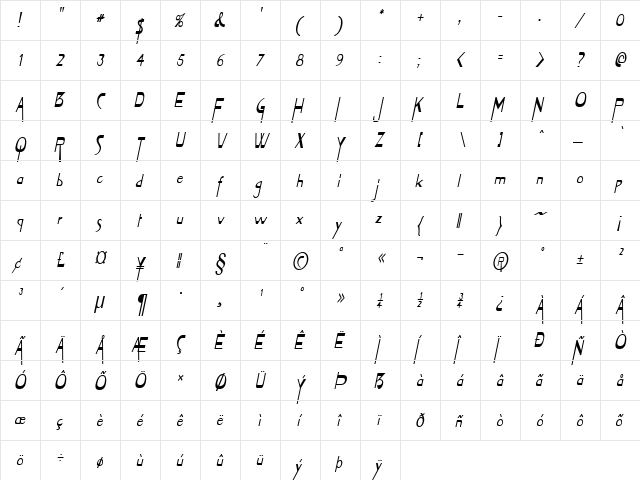
TabletCondensed Italic Font Preview
Design Context for TabletCondensed Typeface
TabletCondensed takes a measured approach to typography — its balanced proportions and neutral character make it a reliable workhorse for both digital and print work. The dynamic lean of this cut emphasises speed and emphasis in any layout. The condensed width makes it efficient for tight spaces without sacrificing legibility.
Pro Tip: Try TabletCondensed for annotation and caption copy alongside an upright companion — the contrast in angle creates a dynamic but ordered typographic system.